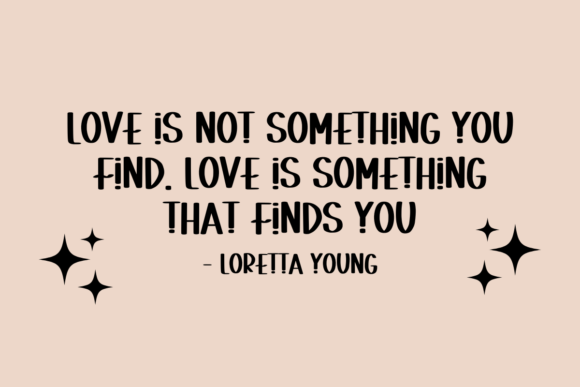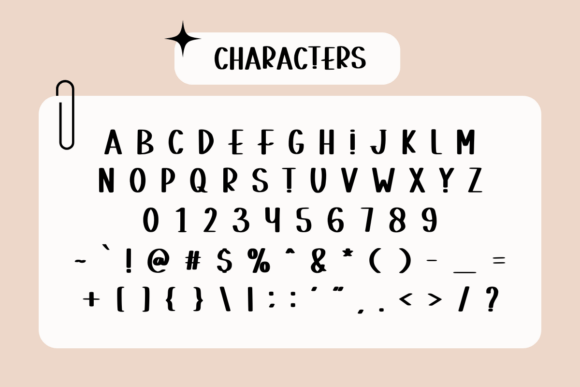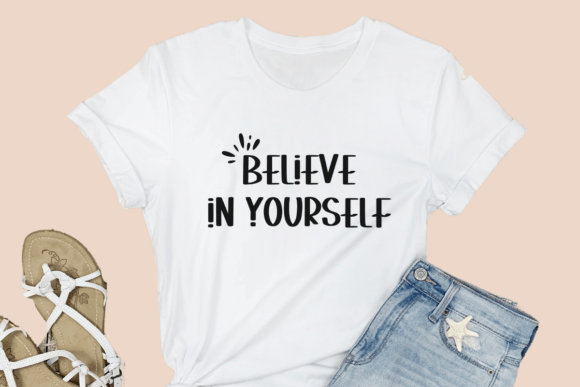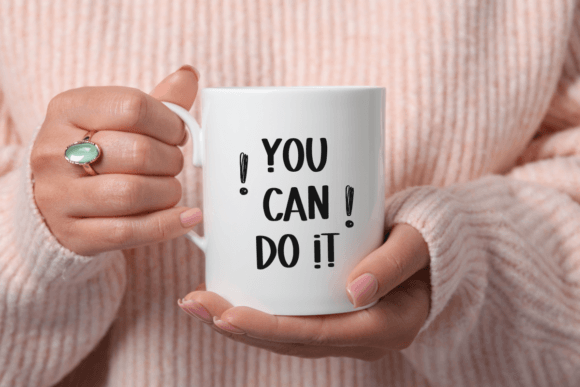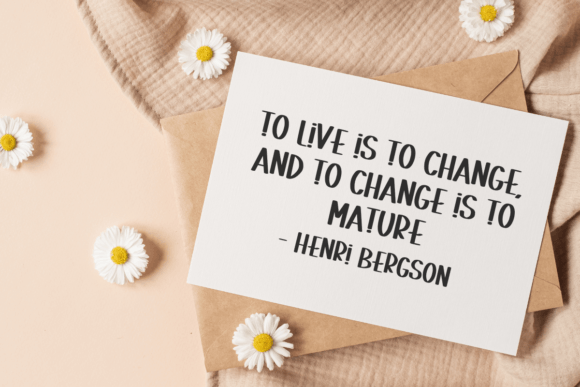
Introduction to Santa Concept Font
Have you ever stared at a blank page, trying to come up with the perfect design for a creative project, only to feel overwhelmed by the endless options? I know I have. That’s why I’m excited to share with you a game-changing design resource that will make your next project a breeze: the Santa Concept Font.
| 👤 Author | CraftedType Studio |
This delightful sans-serif font is more than just a pretty face – it’s a versatile tool that can add a fun and friendly touch to any design, from memos and journals to greeting cards and invitations. With its high-quality design and transparent background, the Santa Concept Font is the perfect addition to any designer’s toolkit.
Whether you’re working on a personal project or a commercial design, the Santa Concept Font is a valuable asset that will help you stand out from the crowd and create truly unique and engaging designs. And the best part? It’s available for free download, making it an accessible resource for designers of all levels.
Key Features of Santa Concept Font
- Comes in a single size, making it easy to use across various design applications
- Unique characteristics: playful, festive, and modern aesthetic, perfect for holiday-themed designs
- Designed to be versatile, suitable for use in logos, graphics, and other creative projects
Honest Review: Santa Concept Font
I recently stumbled upon the Santa Concept Font, and I’m excited to share my thoughts on this design resource. With a focus on festive and playful designs, this font is perfect for creative projects that require a touch of holiday magic.
- The font’s unique blend of modern and traditional elements makes it stand out from other holiday fonts.
- The high quality of the font ensures that it looks great on both digital and print materials.
- The transparent background allows for seamless integration with other design elements.
- The font’s limited character set may not be suitable for longer texts or complex designs.
- The font’s bold and playful style may not be ideal for more formal or professional designs.
Overall, I’m impressed with the Santa Concept Font’s potential for adding a fun and festive touch to creative projects. While it may have some limitations, its unique style and high quality make it a great addition to any designer’s toolkit.
Santa Concept Font
Design Resource for Your Creative Project
The Santa Concept Font is a high-quality design resource perfect for adding a festive touch to your creative project. With a transparent background, this font is easily customizable and can be used in a variety of applications.
Use the Santa Concept Font in conjunction with other festive graphics and images to create a cohesive design.
Experiment with different font sizes and colors to add visual interest to your design.
The Santa Concept Font is perfect for:
Christmas and holiday-themed designs.
Gift wrapping and packaging labels.
Festive social media graphics and posts.